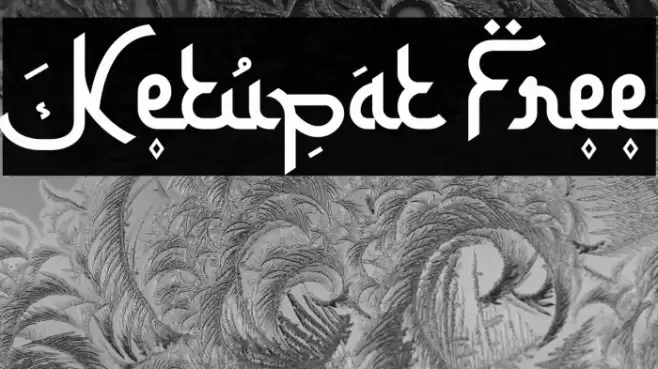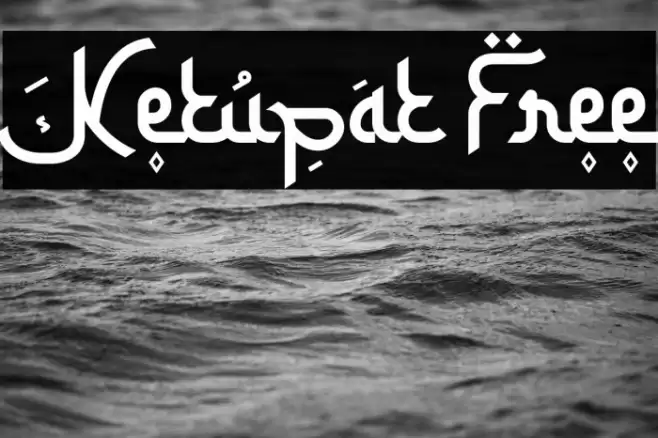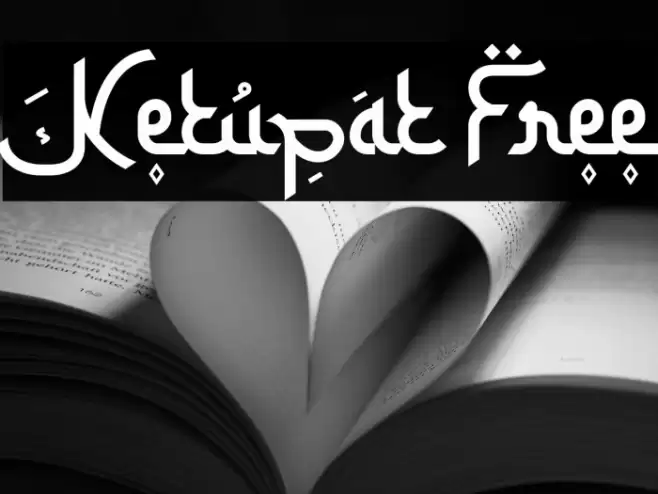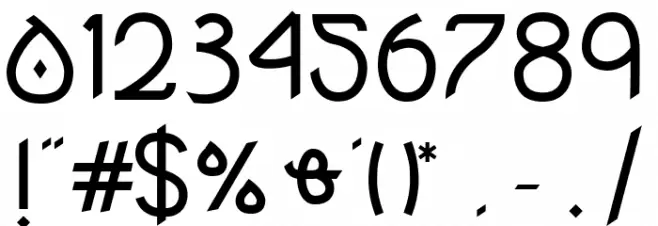
Ketupat Free Font
Ketupat Free Description
This font features a unique blend of traditional and modern elements, characterized by its intricate and decorative style. The characters are adorned with small, elegant flourishes that give it a distinct, ornamental appearance. The uppercase letters are particularly elaborate, with additional strokes and accents that add to their visual interest. The lowercase letters maintain a consistent style, with smooth curves and a slightly condensed form. Numbers and special characters follow the same decorative theme, ensuring a cohesive look across all elements. The overall design is both artistic and functional, making it suitable for a variety of creative applications.
A decorative font with intricate flourishes and a modern twist from Regular fonts.
- Proposed Projects: Ideal for invitations, branding projects, and artistic posters where a unique and decorative touch is desired.
- Use Case: Headlines, Logos, Artistic projects